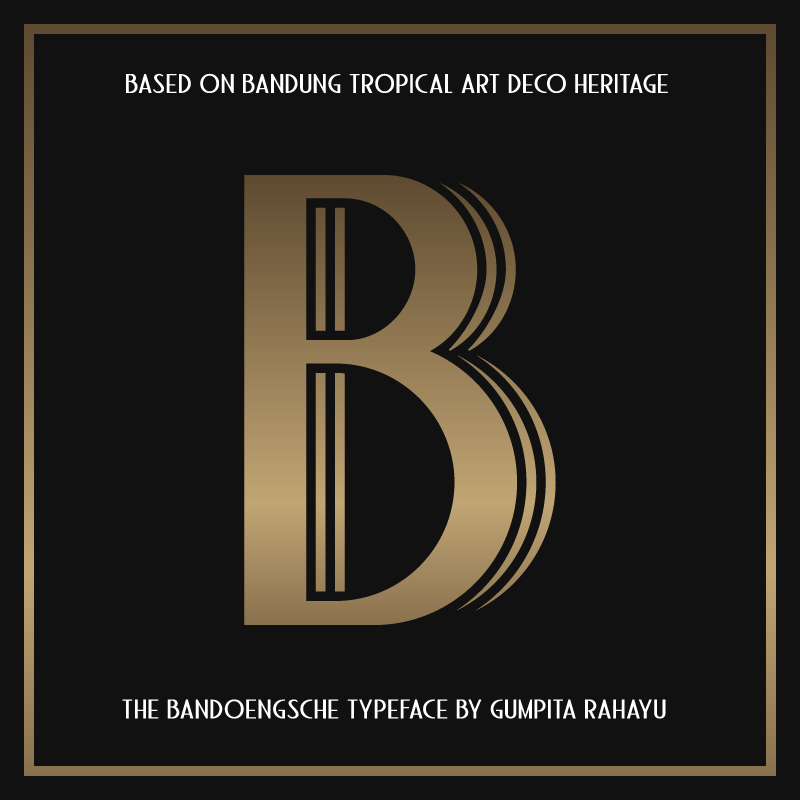
Bandung is home to numerous examples of Dutch colonial architecture; most notably the tropical Art Deco architectural style. This typeface adapted from the finest Art Deco landmarks and signage in Bandung, and strongly added native elements of traditional Art Deco style. The main character is example of a harmonious mixture between West and East architectural styles. This typeface fit with your posters, movie titles, and signage designs. Buy the complete fonts and commercial license here: http://crtv.mk/tM7x |